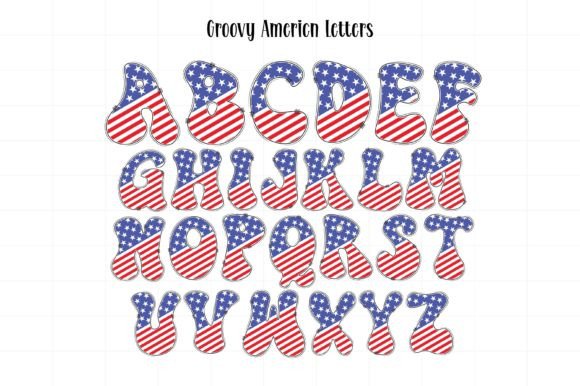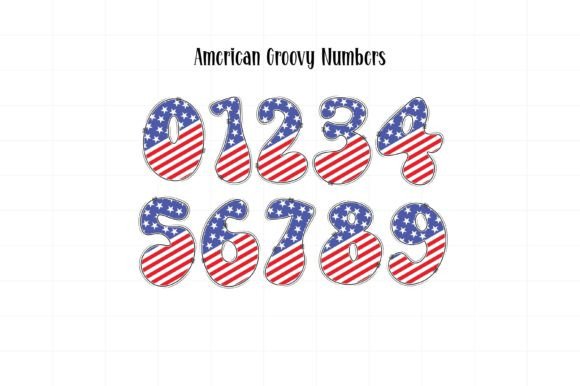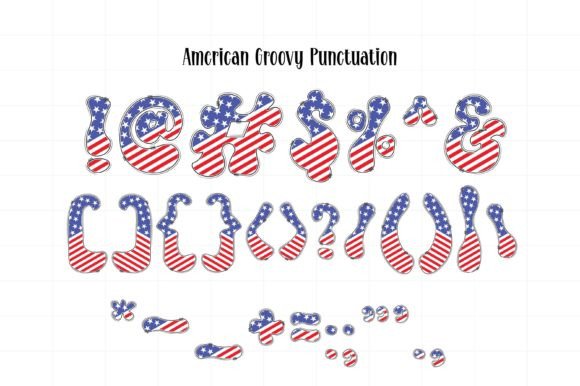
Introducing the Groovy American Font: A Nostalgic and Patriotic Design Essential
Are you looking for a font that embodies the spirit of America, with a dash of nostalgia and a whole lot of charm? Look no further than the Groovy American font duo! This versatile and stylish font combination is perfect for designers and crafters who want to add a touch of All-American flair to their projects. In this article, we’ll dive into the world of the Groovy American font, exploring its features, benefits, and uses.
A Font Duo Like No Other
The Groovy American font duo consists of two unique fonts: a black version and a color version. Both fonts are designed to evoke the spirit of vintage America, with a modern twist. The black version is perfect for use with cutting machines like Cricut Design Space, while the color version is ideal for use with design programs like PhotoShop, Illustrator, Silhouette, and Inkscape.
Perfect for Apparel Designs and Product Packaging
The Groovy American font duo is perfectly tailored for use in apparel designs and product packaging. Whether you’re creating custom t-shirts, hats, or bags, this font adds a touch of patriotism and style that’s sure to turn heads. The font’s decorative elements and charm make it perfect for use in branding, advertising, and marketing materials.
4th of July Thematics and Beyond
The Groovy American font duo is especially perfect for 4th of July thematics. From name tags to Independence Day garlands, this font adds a touch of vintage America to any project. But its uses don’t stop there. You can use this font to create custom decorations, party favors, and even DIY projects for other patriotic holidays like Memorial Day and Veterans Day.
Tips and Tricks for Using the Groovy American Font
Why Choose the Groovy American Font?
- Unique and eye-catching design: The Groovy American font duo features a unique and eye-catching design that’s sure to turn heads.
- Versatile and flexible: This font duo is versatile and flexible, making it perfect for use in a wide range of design projects.
- Patriotic and nostalgic charm: The Groovy American font duo embodies the spirit of America, with a dash of nostalgia and a whole lot of charm.